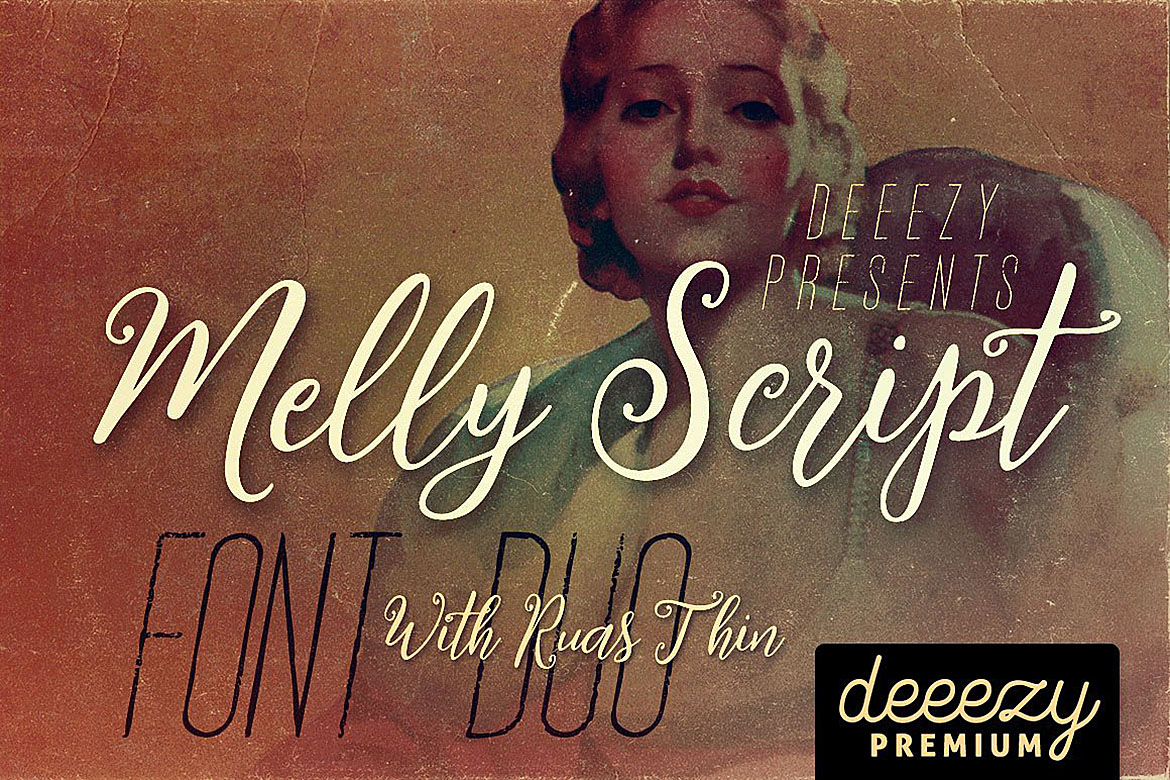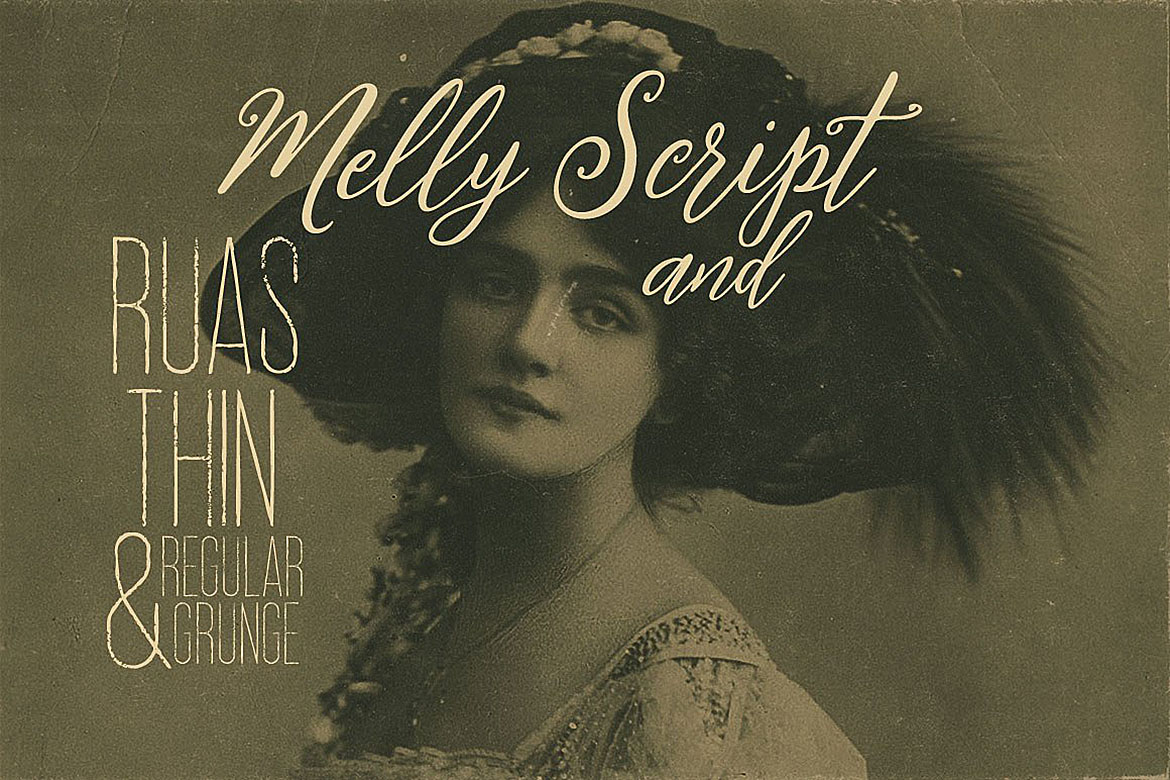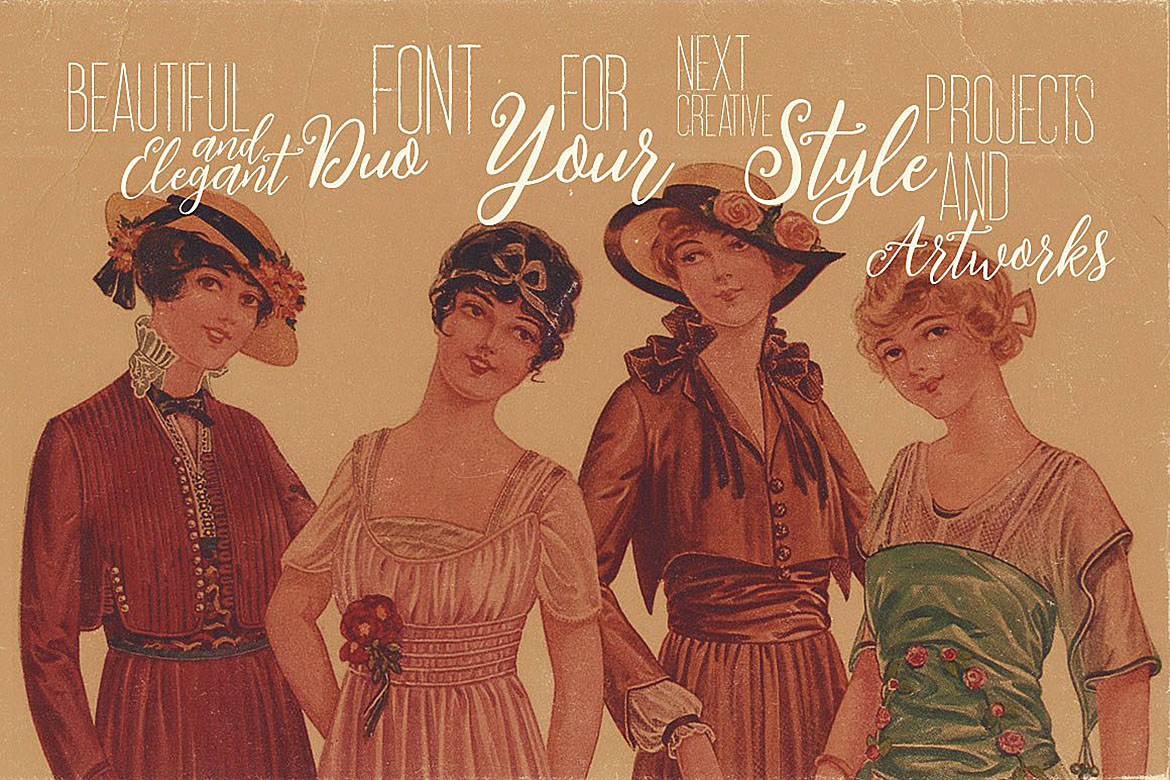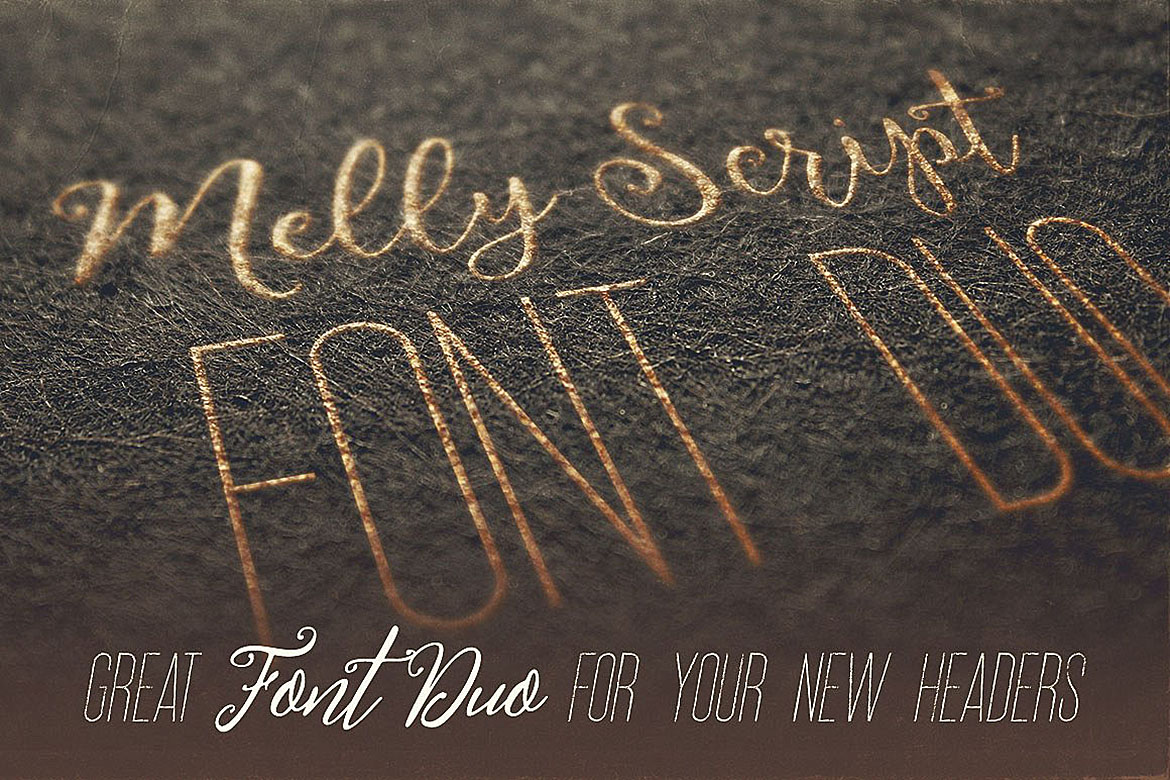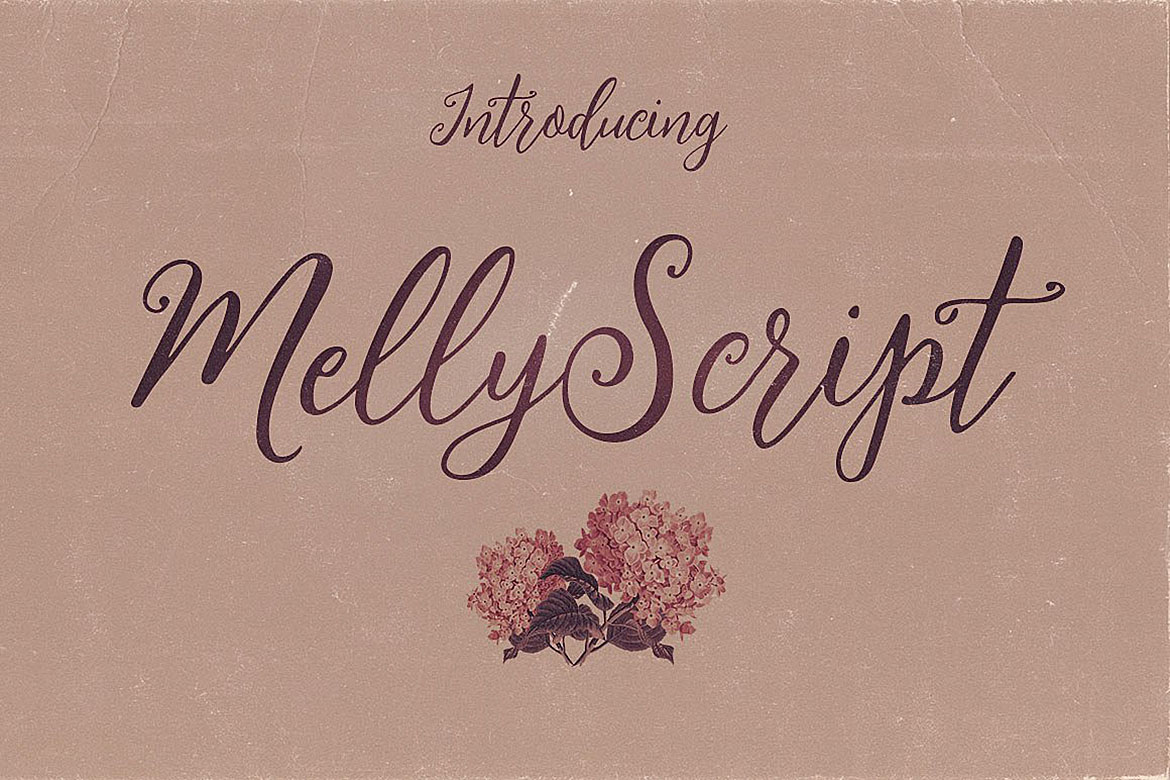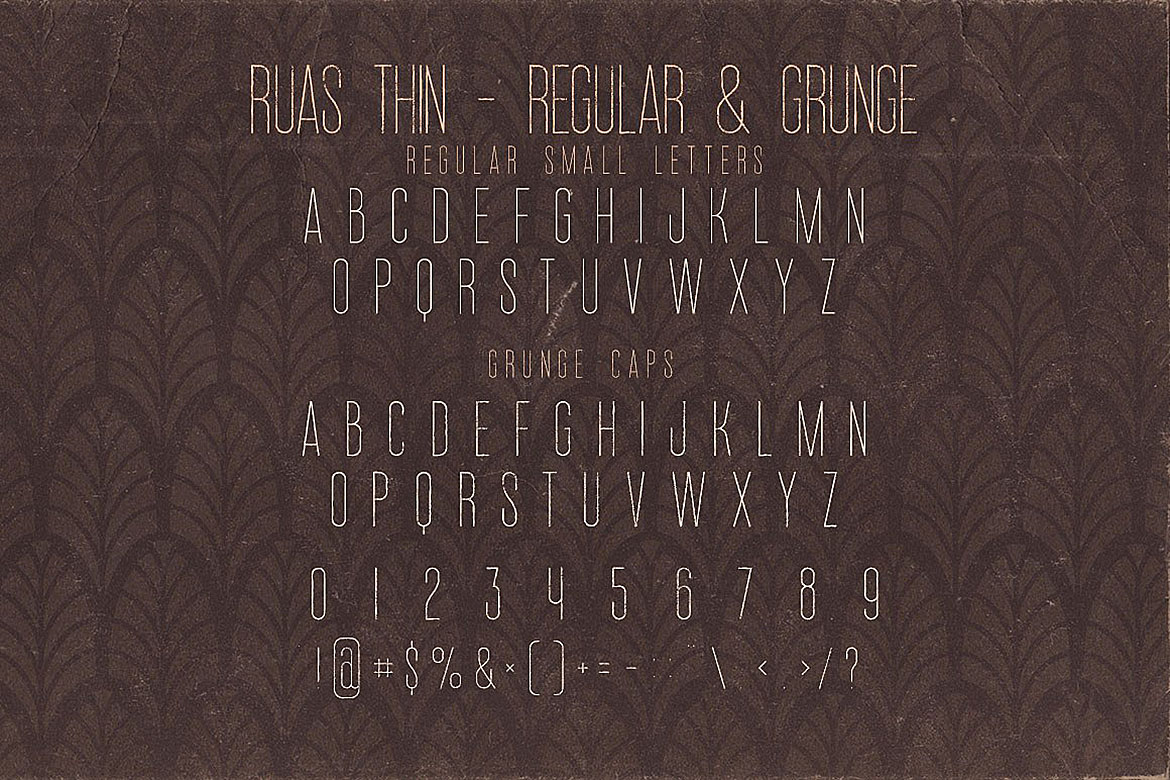
Melly Script Font Duo Font
About Melly Script Font Duo Font
Cool retro or vintage style font duo for your projects. First font is handdrawn & unique decorative style script font with multi language support and lot of stylistic alternates. Second font is thin sans serif display font with regular & grunge version (without multi language support).